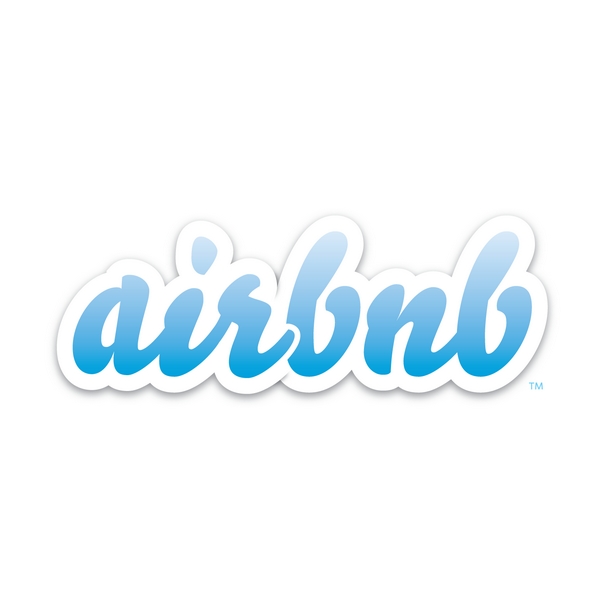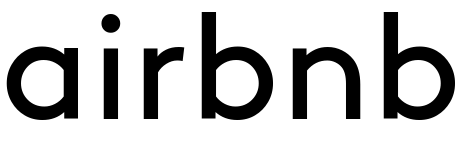
Airbnb Font
Fonts in UseAirbnb is an online marketplace that connects people looking to rent out their homes or apartments with travelers seeking a place to stay. It was founded in 2008 and has since grown to become one of the world's largest hospitality companies.
The logo's font is likely Bello Script, an acclaimed brush typeface with numerous ligatures and swashes.
However, please note that in 2014, Airbnb introduced a new logo that was designed by London-based DesignStudio. The new logo incorporates a geometric sans serif font called LL Brown, which can be viewed here.